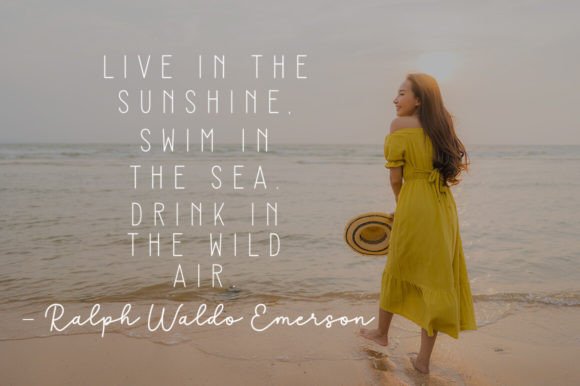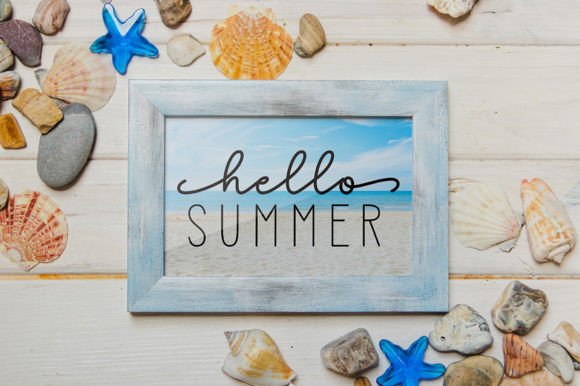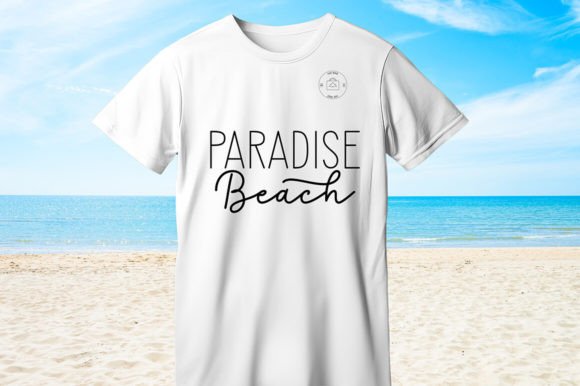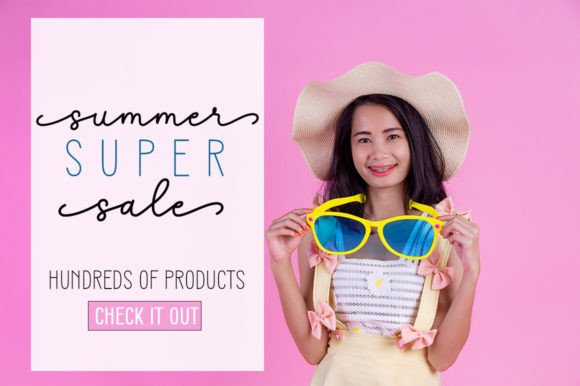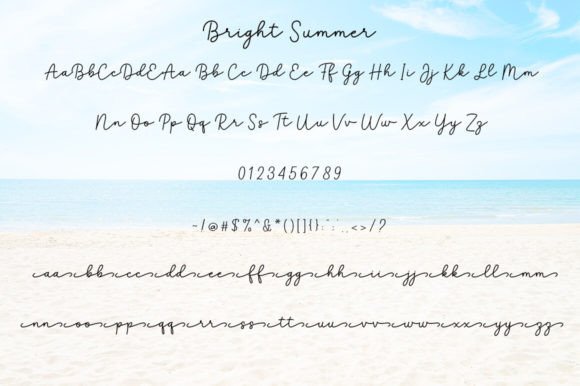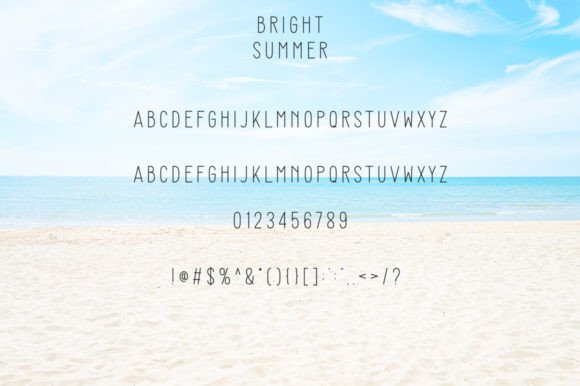
Unlock the Magic of Summer with the Bright Summer Duo Font
Have you ever sat by a warm summer breeze, feeling the gentle rustle of leaves and watching the sunset paint the sky with hues of gold and pink? It’s moments like these that spark creativity and inspire us to bring a touch of whimsy to our designs. For designers, the search for the perfect font to capture that essence is a constant quest.
Enter the Bright Summer Duo Font, a beautifully crafted combination of sans serif and script fonts that seamlessly blend together to create a harmonious and captivating visual experience. This versatile font is perfect for a wide range of applications, from greeting cards to eye-catching headlines, and its romantic charm is sure to leave a lasting impression. Whether you’re a seasoned designer or a newcomer to the world of typography, the Bright Summer Duo Font is a valuable addition to your toolkit.
Bright Summer Duo Font Key Features
- Font Family: Bright Summer Duo
- Unique Characteristics:
- Hand-drawn design with a modern twist
- Perfect for summer-themed projects, travel, and outdoor activities
- Works well for titles, headings, and body text
Designer Review: Bright Summer Duo Font
The Bright Summer Duo Font is a beautiful, playful font that’s perfect for summer-themed projects. ✨ I love how the font combines a cheerful script with a modern sans-serif design, creating a unique and eye-catching visual experience. The font is great for titles, headings, and short paragraphs where you want to add some personality to your design.
One of the things that works well about this font is its versatility. ✨ It’s great for both digital and print projects, and it looks great in a variety of colors and combinations. The font also comes in two weights, light and regular, which makes it easy to use for both small and large text.
- ⚠️ The font may not be suitable for long blocks of text, as the script style can become overwhelming.
- ⚠️ The font’s italic style is not as polished as the regular style, which may make it less appealing for certain designs.
Overall, I’m really impressed with the Bright Summer Duo Font. ✨ It’s a fun and creative font that’s perfect for summer-themed projects or any design that needs a little personality. While it may have some limitations, the font’s versatility and unique style make it a great addition to any designer’s toolkit.
Use Bright Summer Duo Font for creative and playful designs, such as:
- Summer-themed graphics and posters.
- Children’s book covers and illustrations.
Remember to experiment with different font sizes and styles to get the most out of this versatile font.